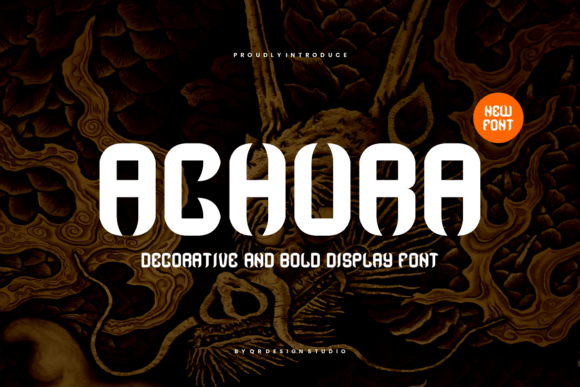
The Achura Font: A Bold and Authentic Decorative Delight
I’ll never forget the time I was working on a branding project for a sports team, and I just couldn’t seem to find the right font. The client wanted something bold, energetic, and authentic, but everything I tried seemed to fall flat. That’s when I stumbled upon the Achura font, and let me tell you, it was a game-changer! 💥
Achura Font: The Perfect Blend of Style and Versatility
Achura is a bold and authentic decorative font that’s perfect for any branding project that needs a bit of oomph. Whether you’re working on a logo, a sports team, or just want to add some personality to your design, Achura is an excellent choice. Its unique blend of style and versatility makes it suitable for a wide range of contexts, from bold headlines to eye-catching slogans.
An Honest Review: The Good and the Quirky
What I Love About Achura ✨
- ✅ Bold and authentic: Achura has a unique, hand-crafted feel that’s perfect for making a statement.
- ✅ Highly versatile: This font works beautifully in a variety of contexts, from logos to headlines and more.
- ✅ Easy to read: Despite its bold and decorative nature, Achura is surprisingly easy to read, even at smaller sizes.
- ⚠️ Limited use in body text: While Achura is amazing for headlines and titles, it’s not the best choice for longer blocks of text.
- ⚠️ May not be suitable for very small sizes: Achura’s bold and decorative nature can make it a bit tricky to read at very small sizes.
The Designer Inspiration Behind Achura
Achura was designed with the goal of creating a bold and authentic decorative font that would inspire designers to push the boundaries of their creativity. The designer’s inspiration came from a mix of traditional and modern typography, blended with a passion for sports and energetic visuals. The result is a font that’s both stylish and attention-grabbing.
Q: What is Achura font best used for?
A: Achura font is best used for bold and eye-catching designs, such as logos, headlines, and titles.
Q: Is Achura a script font?
A: No, Achura is a decorative font with a bold and sans-serif design.